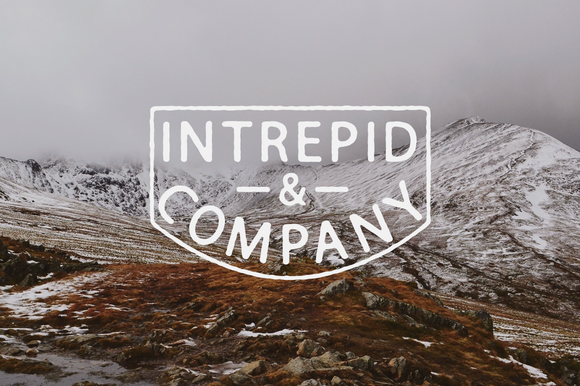
Step into the world of Intrepid Font, a display font family that will ignite your creativity and leave a lasting impression. Designed to capture the spirit of adventure and exploration, Intrepid possesses a bold and confident personality, perfect for making a statement in logos, badges, and captivating headlines.
Unleash your inner explorer and let Intrepid guide you through uncharted territories of visual expression. Each carefully crafted character exudes a sense of power and determination, ready to propel your designs to new heights. Whether you're a seasoned adventurer or just starting your creative journey, Intrepid will be your steadfast companion, encouraging you to push boundaries and make an impact.
Beyond its visual appeal, Intrepid Font is a versatile tool that seamlessly adapts to your creative vision. With its crisp lines and distinct letterforms, Intrepid delivers clarity and legibility, ensuring your messages are conveyed with impact and precision. Whether you're crafting logos for adventurous brands, creating eye-catching posters, or designing captivating social media graphics, Intrepid will rise to the challenge, propelling your designs to new heights.
Join the ranks of intrepid creatives who dare to be different, who embrace the unknown, and who leave an indelible mark on the world with their bold designs. Let Intrepid Font be your guide, your weapon, and your ally in this exhilarating expedition of visual storytelling. Unleash its power and watch your imagination soar to new heights.